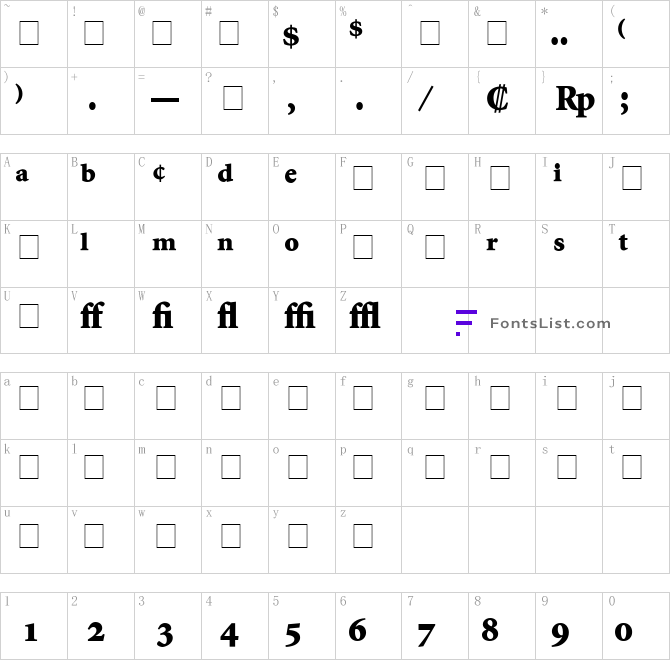
- Font Name:Atlantix Pro Black SSi
Atlantix-Pro-Black-SSi-Black.ttf is a very beautiful artistic font, Atlantix-Pro-Black-SSi-Black.ttf is widely used in the design and printing of various books and pictures,Atlantix-Pro-Black-SSi-Black.ttf has a strong visual impact,Atlantix-Pro-Black-SSi-Black.ttf is a commonly used font in newspapers, magazines and books, and is used in posters, e-commerce Poster design, store design, logo design, font design and other fields.Atlantix-Pro-Black-SSi-Black.